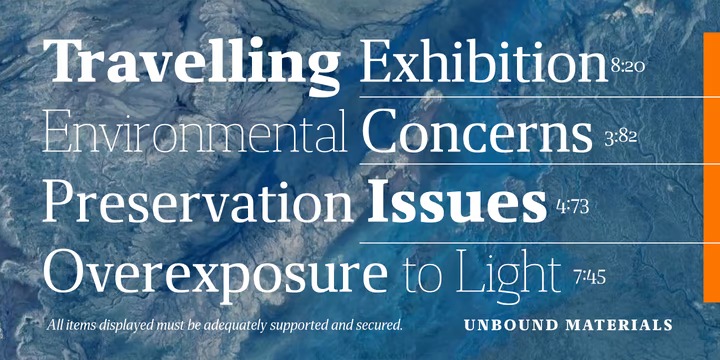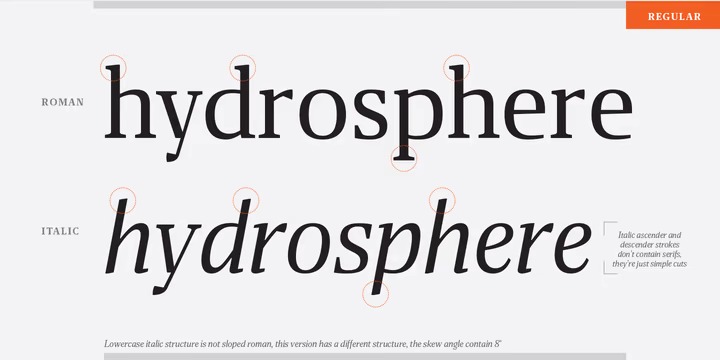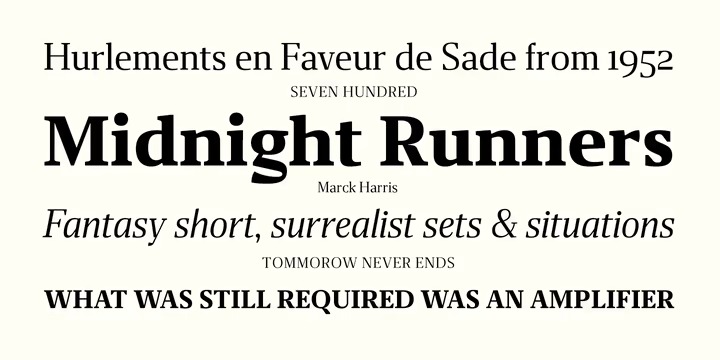
Miragem Serif Font
It’s a modern serif font family from designer Vanarchiv . This font family consists of 18 different styles. This serif typeface was designed to be simple and neutral on text sizes, there descender proportions are short and the x-height is large. The lowercase italics contain different structure from roman characters, but the most differentiation detail is the fact the ascender and descender strokes don’t contain serifs. Italics characters are slightly more narrow and condensed than roman letterforms.